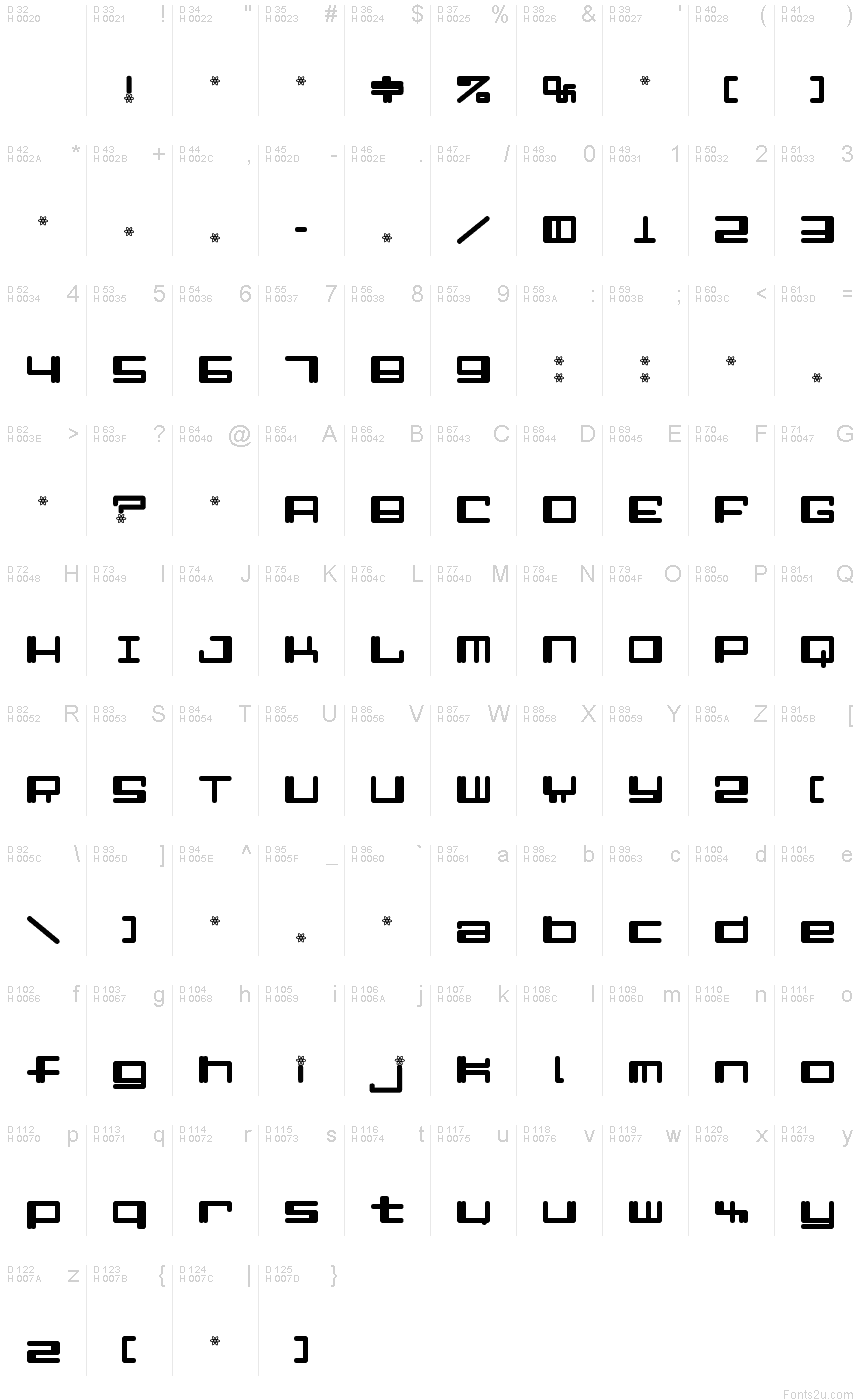
Alpha Niner
Alpha Niner font by Font"a"licious Fonts is a free techno display typeface with a playful sci‑fi twist. Its chunky, rounded rectangles, tight spacing, and horizontal inlines feel like glowing circuitry, while the little starburst accent on the “i” adds a quirky, almost retro game vibe. The letters connect visually into smooth, continuous bands, giving logos and titles a strong, unified silhouette that still feels soft and approachable.
Using Alpha Niner, you get a bold, futuristic voice that works beautifully for game titles, app splash screens, YouTube banners, kids’ tech workshops, event posters, and sci‑fi zines. This free font excels when set large, where its inline details and connected shapes can really breathe. Pair Alpha Niner with a clean geometric sans in smaller text to keep layouts readable while letting the techno letterforms command attention.